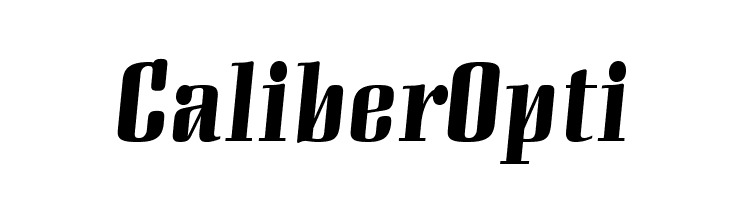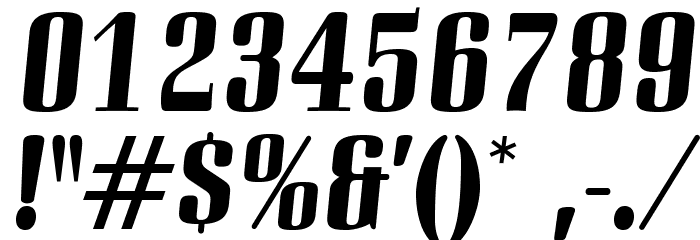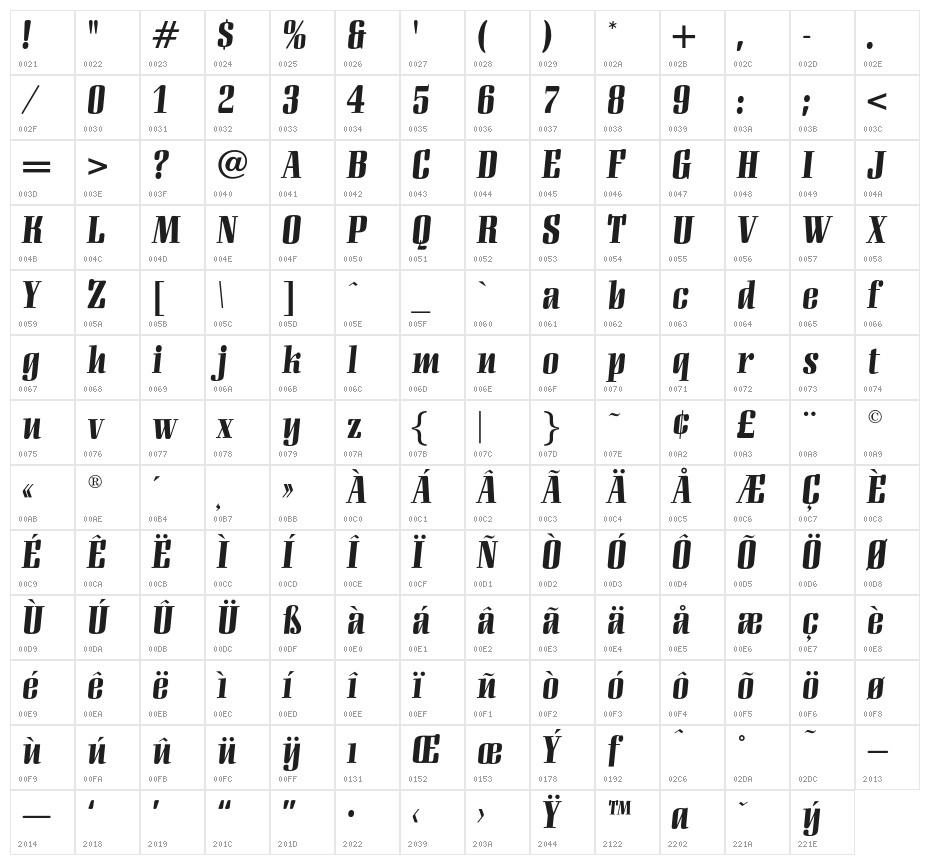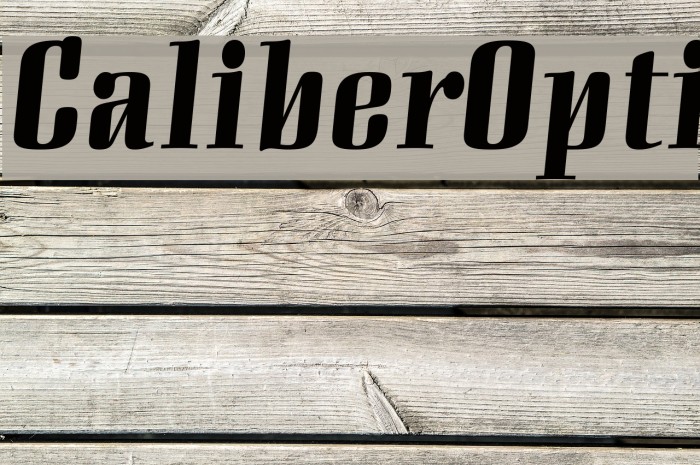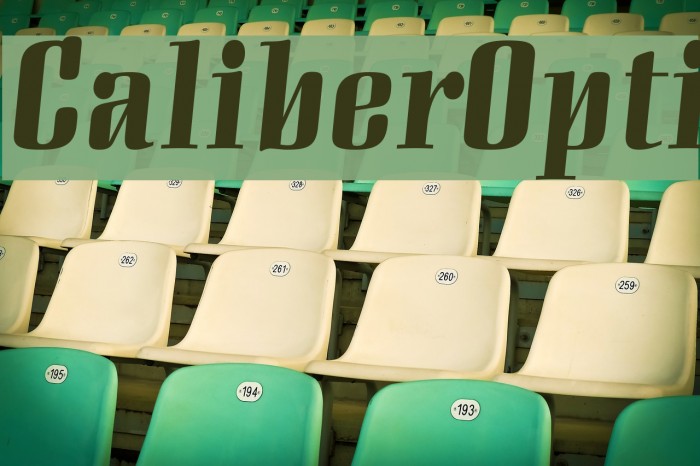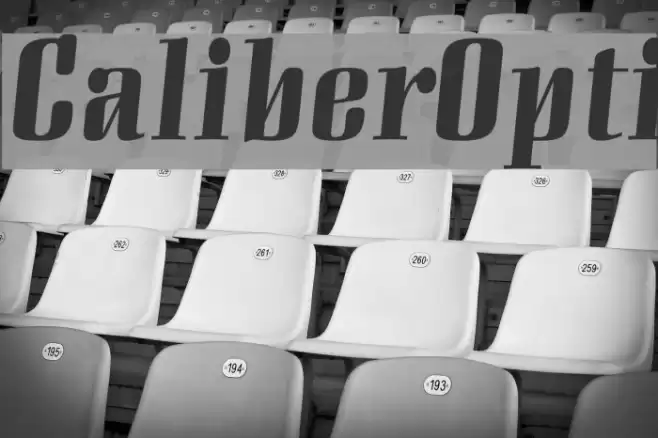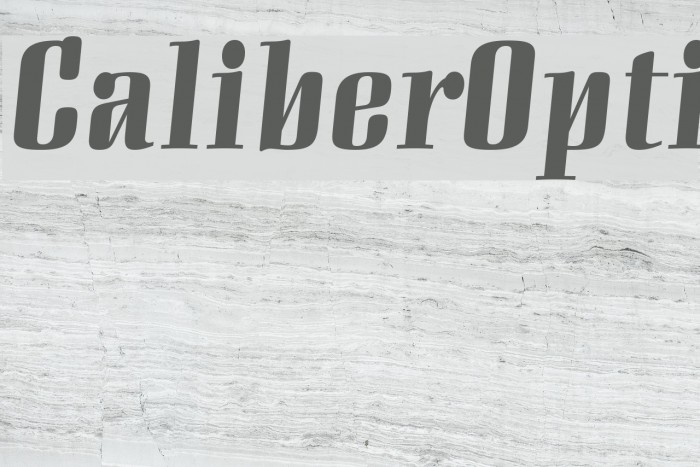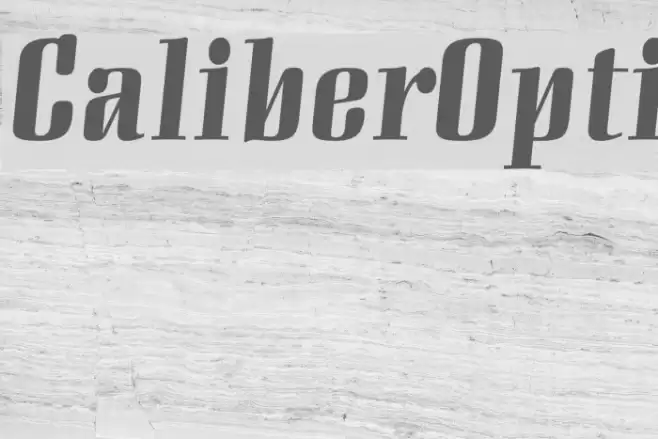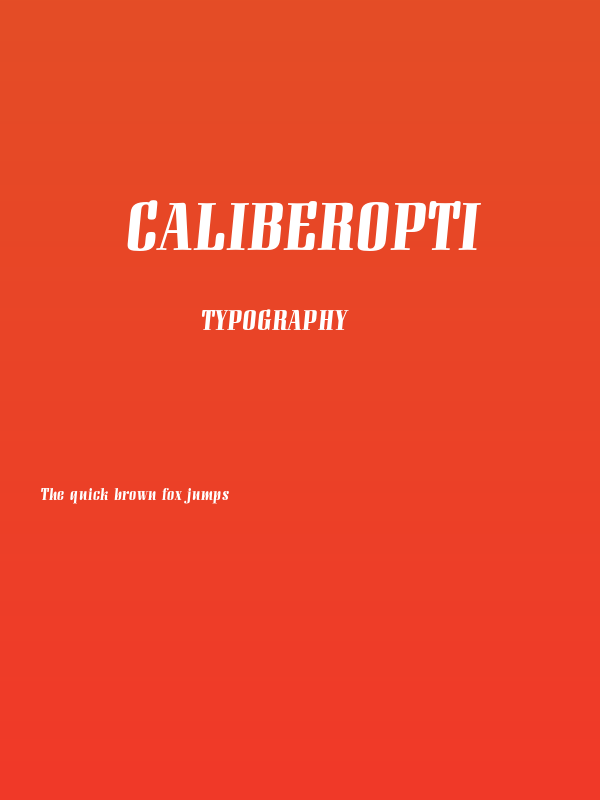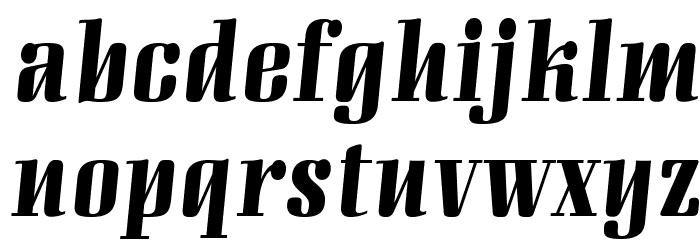
CaliberOpti Font
CaliberOpti Description
This font exhibits a bold and dynamic style with a strong presence. The uppercase letters are tall and slightly condensed, featuring a distinctive slant that adds a sense of motion and energy. The lowercase letters maintain this slant, providing a cohesive look across the typeface. The numerals are robust and consistent with the overall boldness, making them highly legible. Special characters are well-integrated, maintaining the font's unique style. The font's design is modern and impactful, suitable for making statements.
| Proposed Projects | Ideal for branding, advertising, headlines, and posters where a strong, modern impact is desired. |